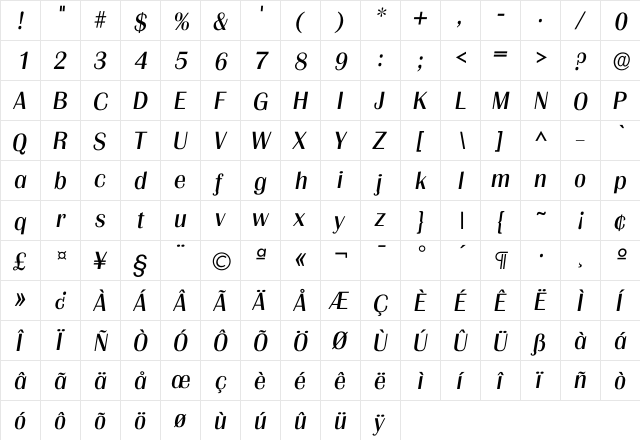
Igrenoble Regular
Design Context for Igrenoble Typeface
Igrenoble takes a measured approach to typography — its balanced proportions and neutral character make it a reliable workhorse for both digital and print work.